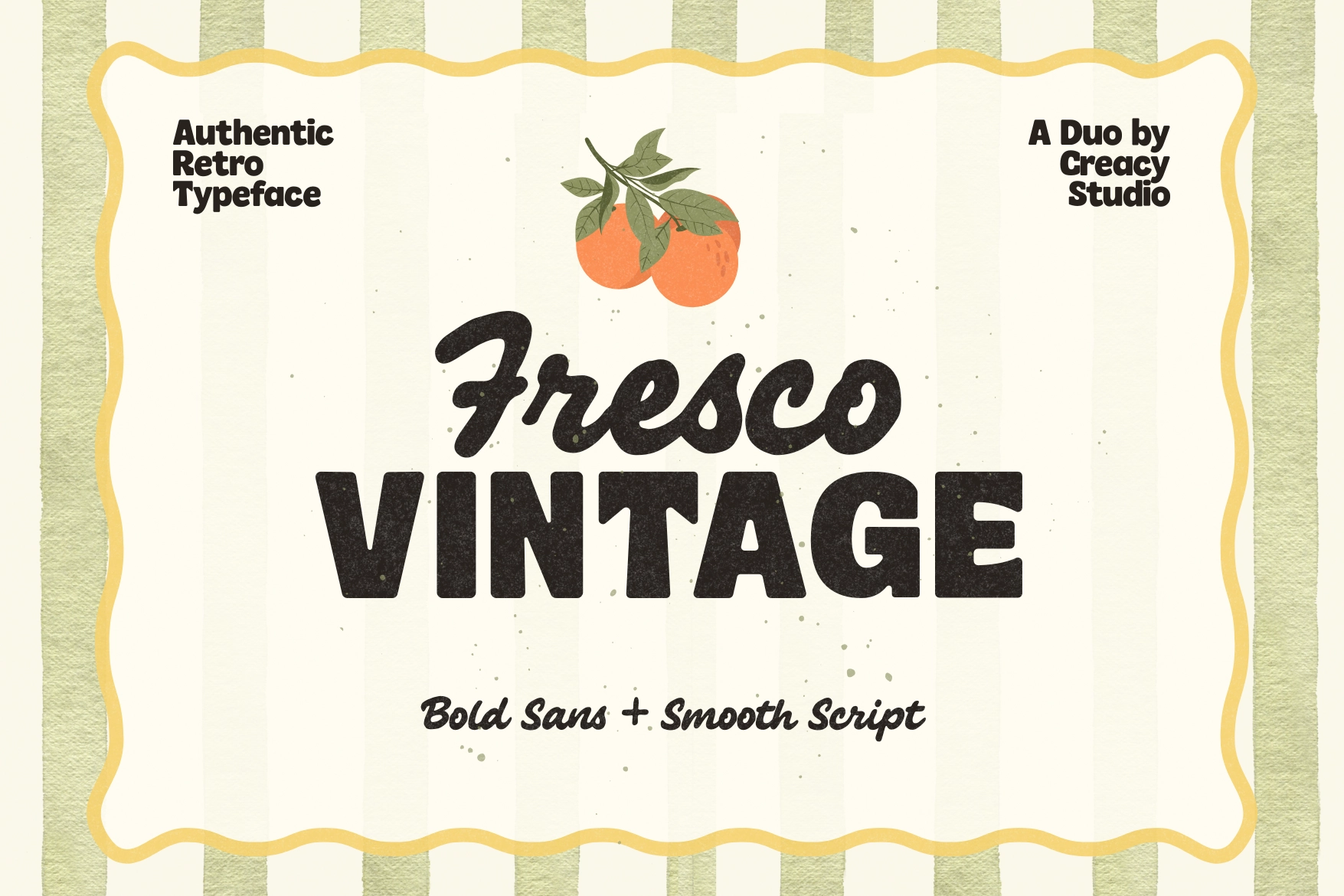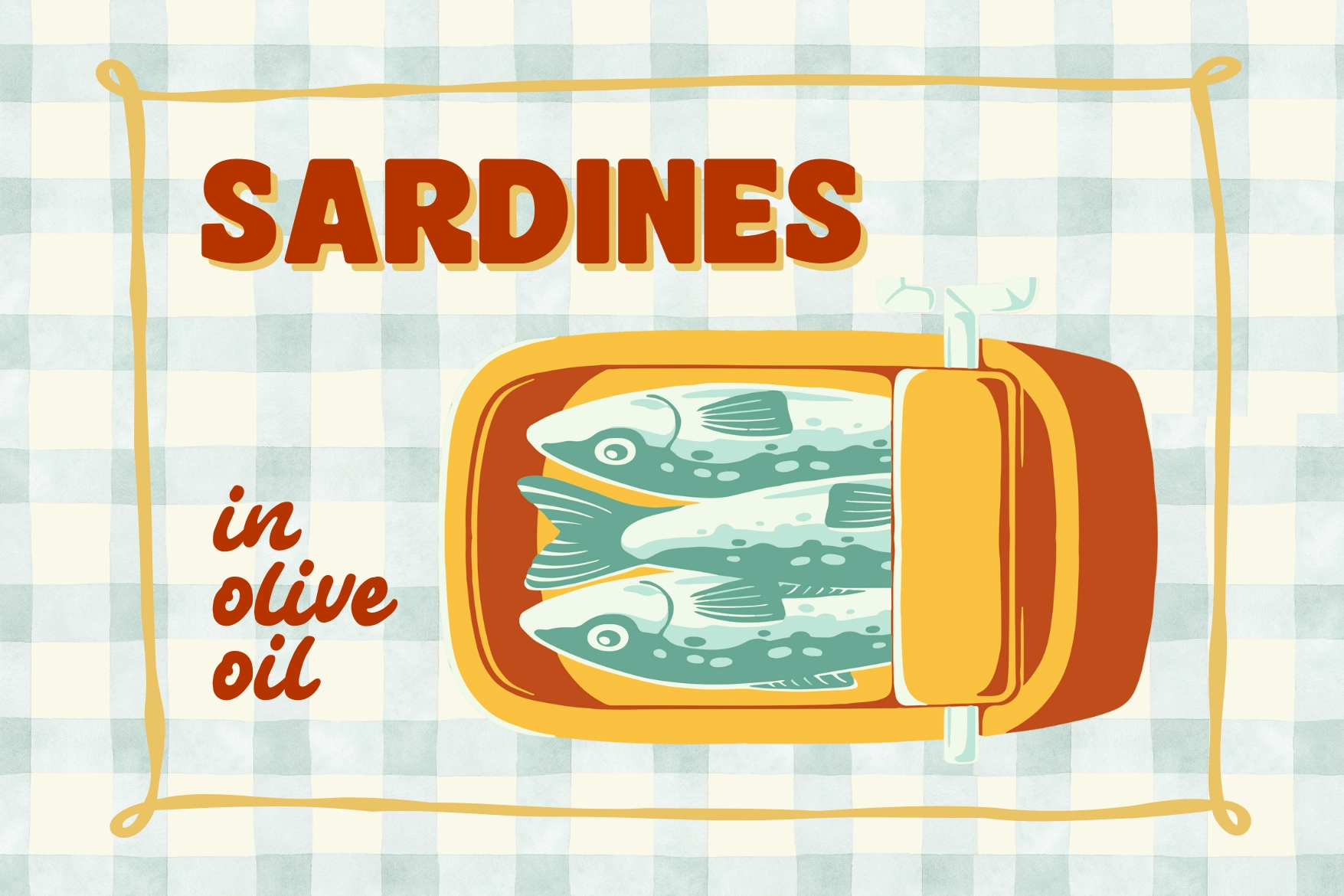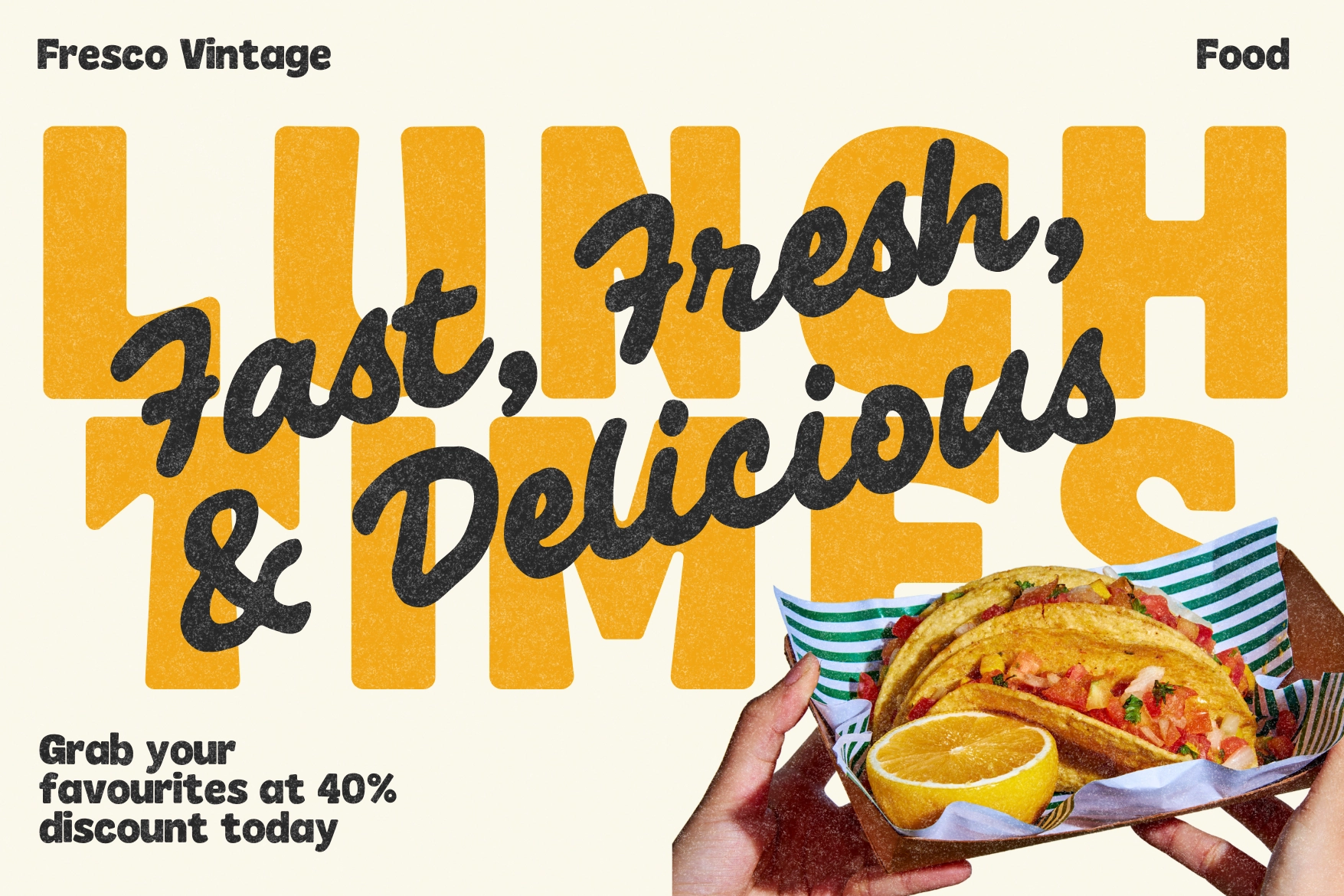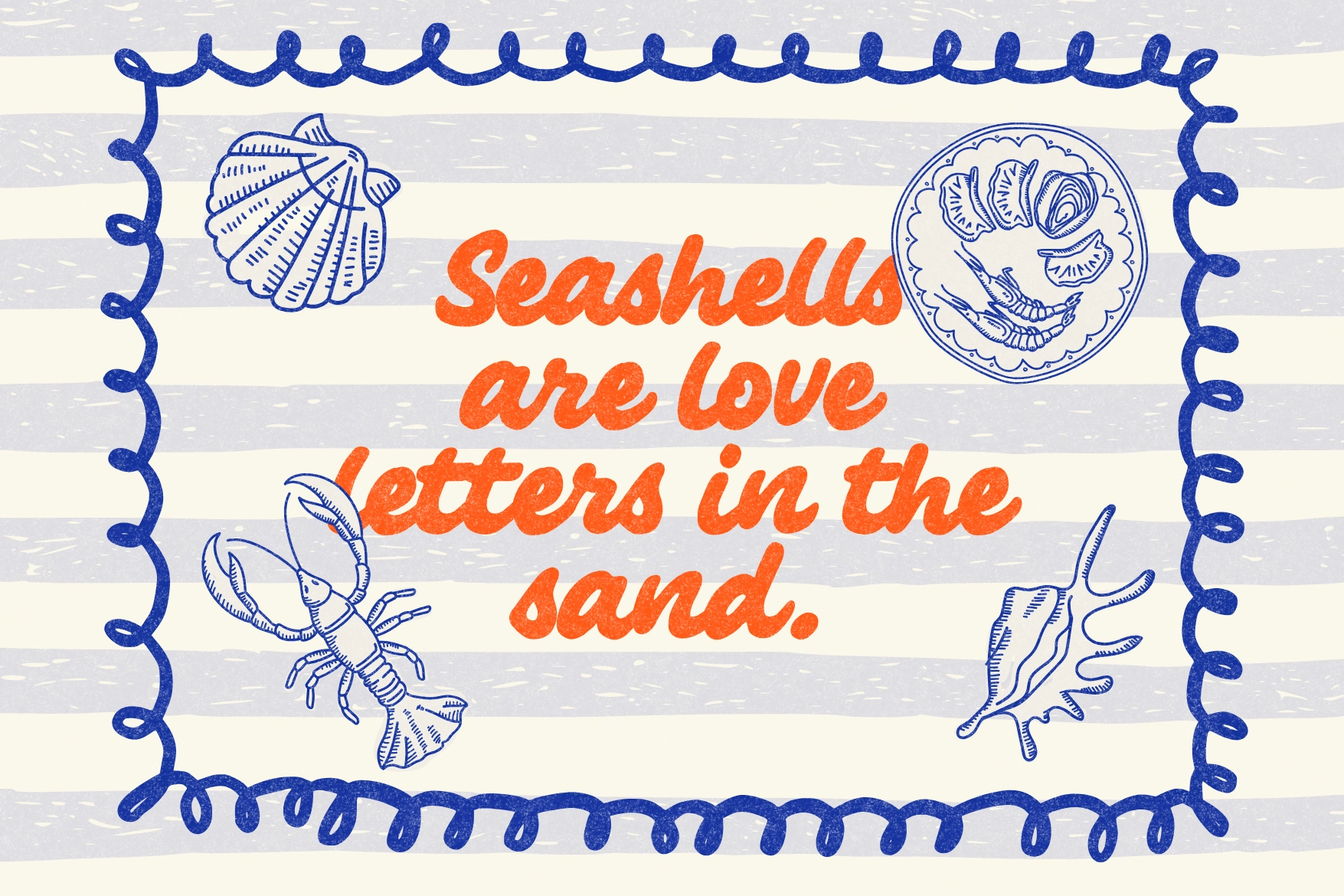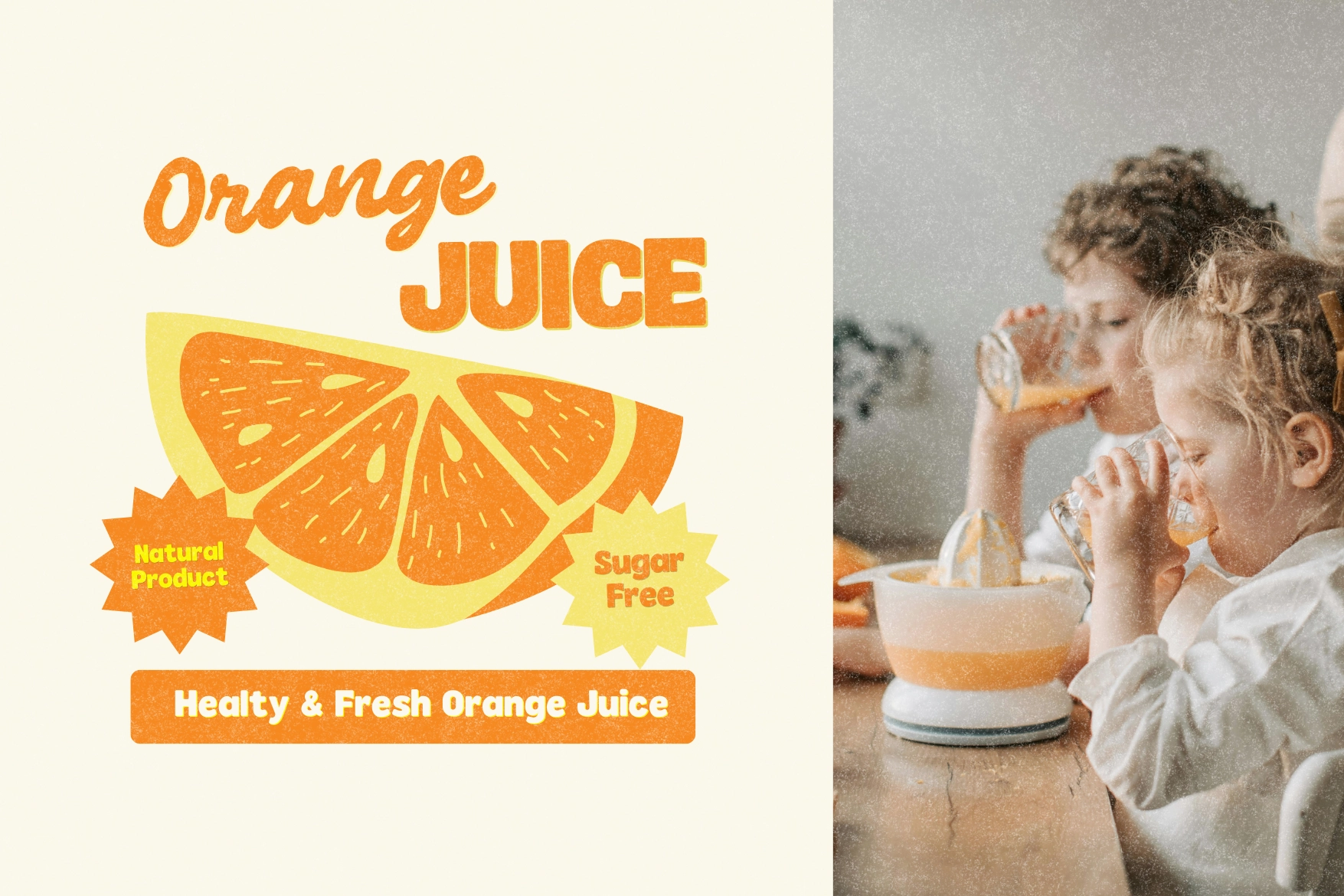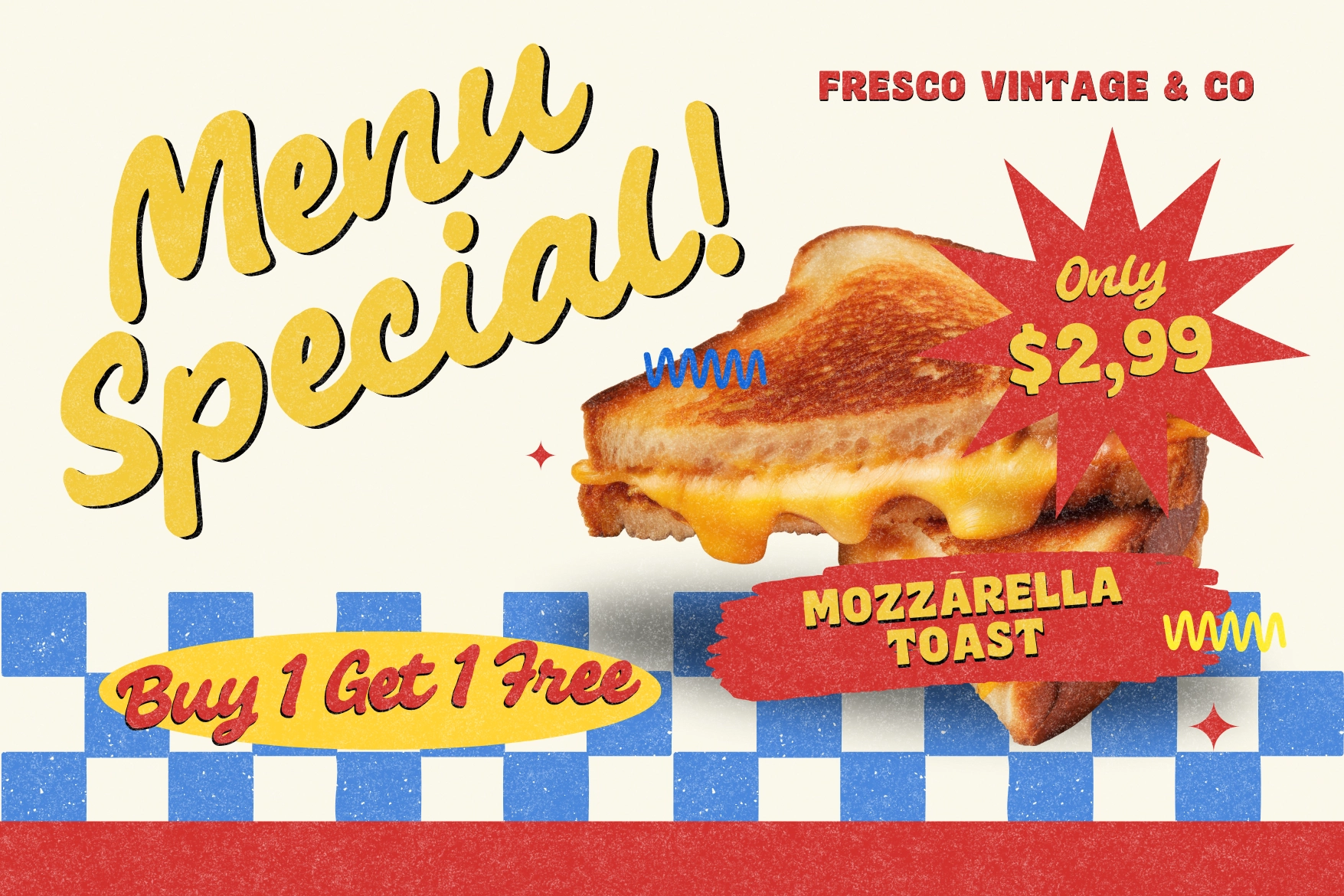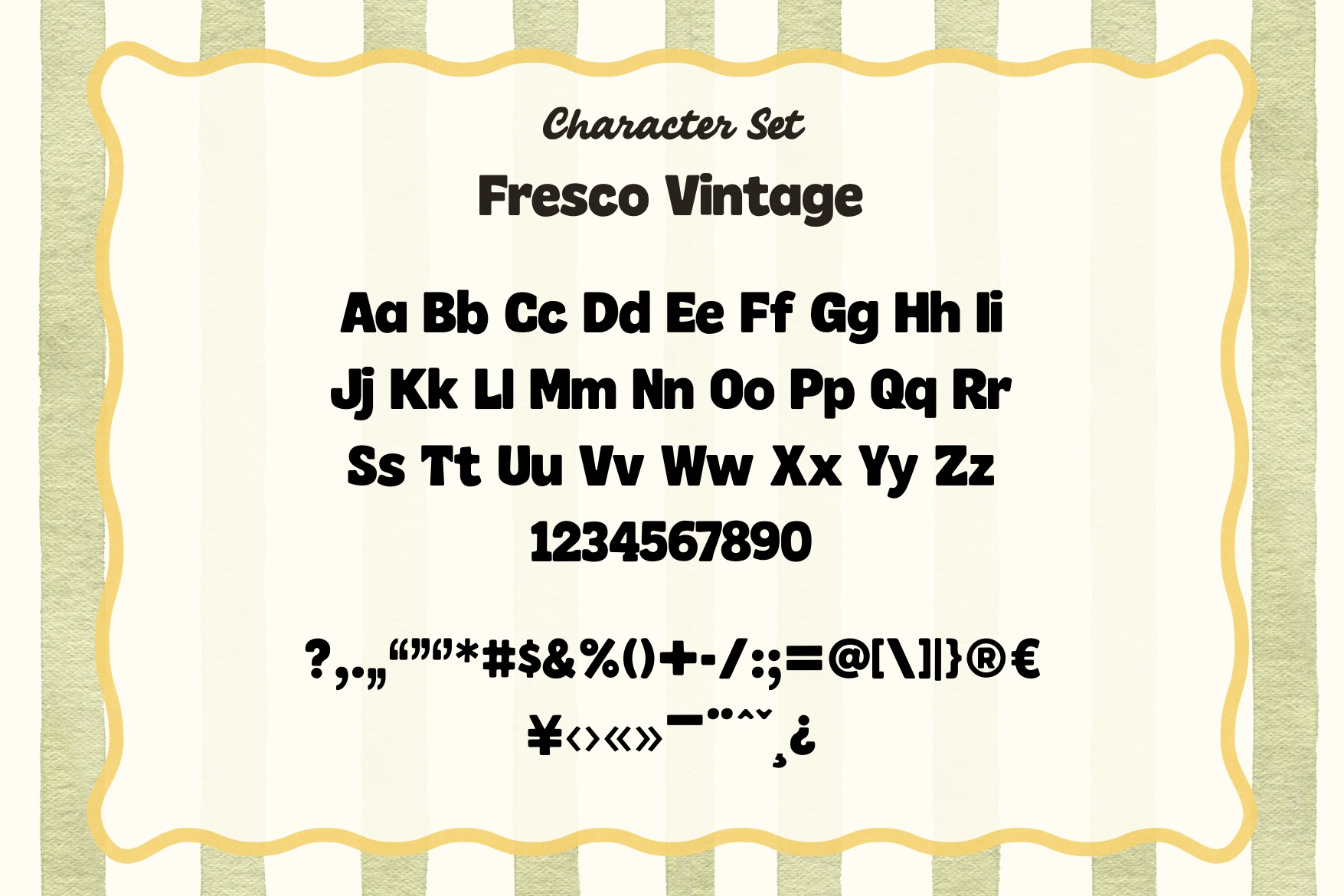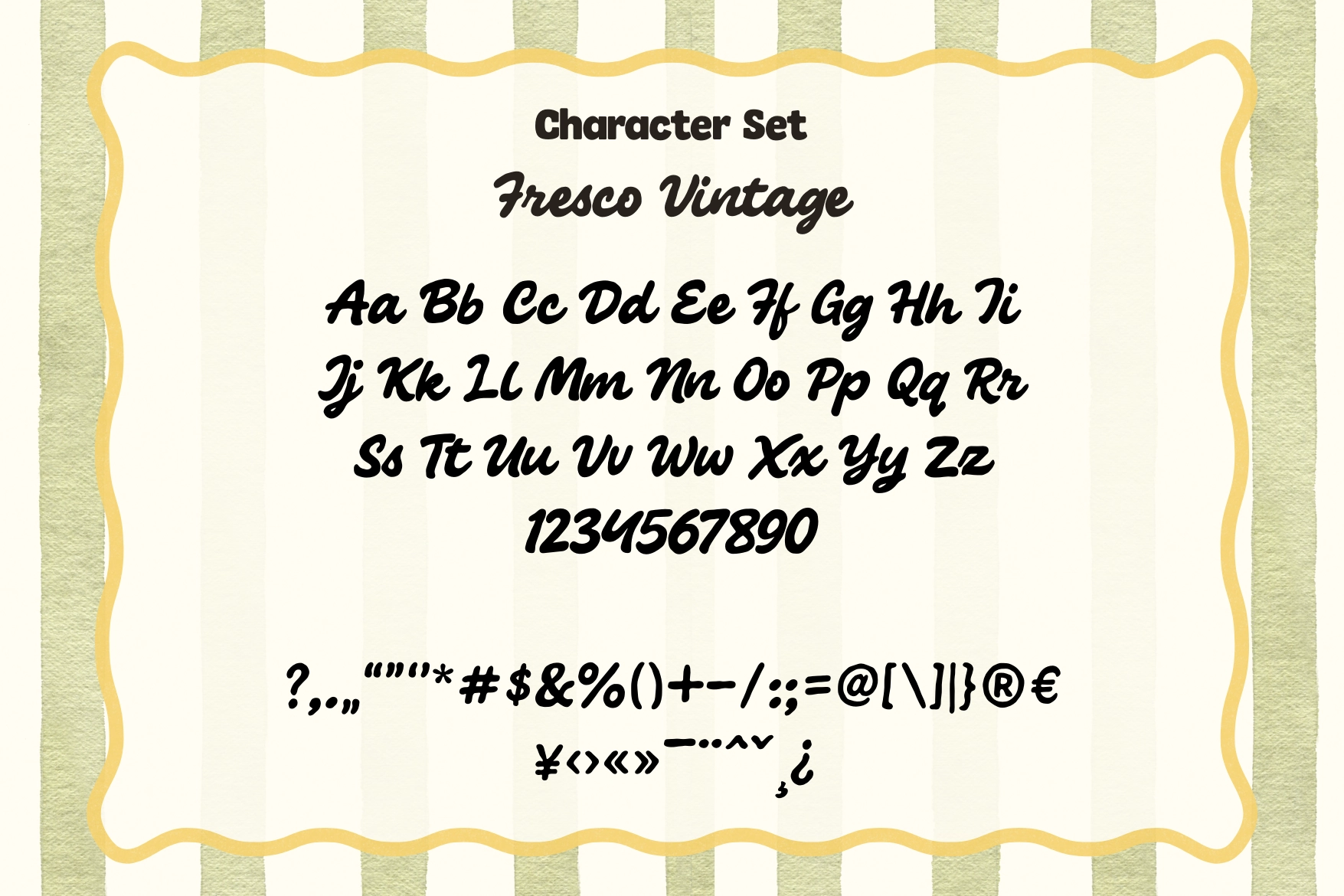
Fresco Vintage – Authentic Retro Duo
Step back into the golden age of design with Fresco Vintage, an authentic retro font duo that blends nostalgic charm with handcrafted detail.
This set pairs a bold vintage script and a clean sans companion , perfectly balanced for timeless logos, packaging, and editorial headlines. Each letter flows with a touch of imperfection — echoing the warmth of hand-painted signage and mid-century craftsmanship.
Whether you're creating a retro café brand, apparel label, or nostalgic poster, Fresco Vintage delivers that genuine vintage energy with a modern touch.
- Fresco Vintage Script (handcrafted retro cursive)
- Fresco Vintage Sans (clean all-caps companion)
Perfect For
- Retro branding & logo design
- Coffee shops & diner aesthetics
- Packaging & product labels
- Editorial headlines
- Vintage-inspired social media graphics
Bring your designs to life with Fresco Vintage — where retro authenticity meets handcrafted flair.